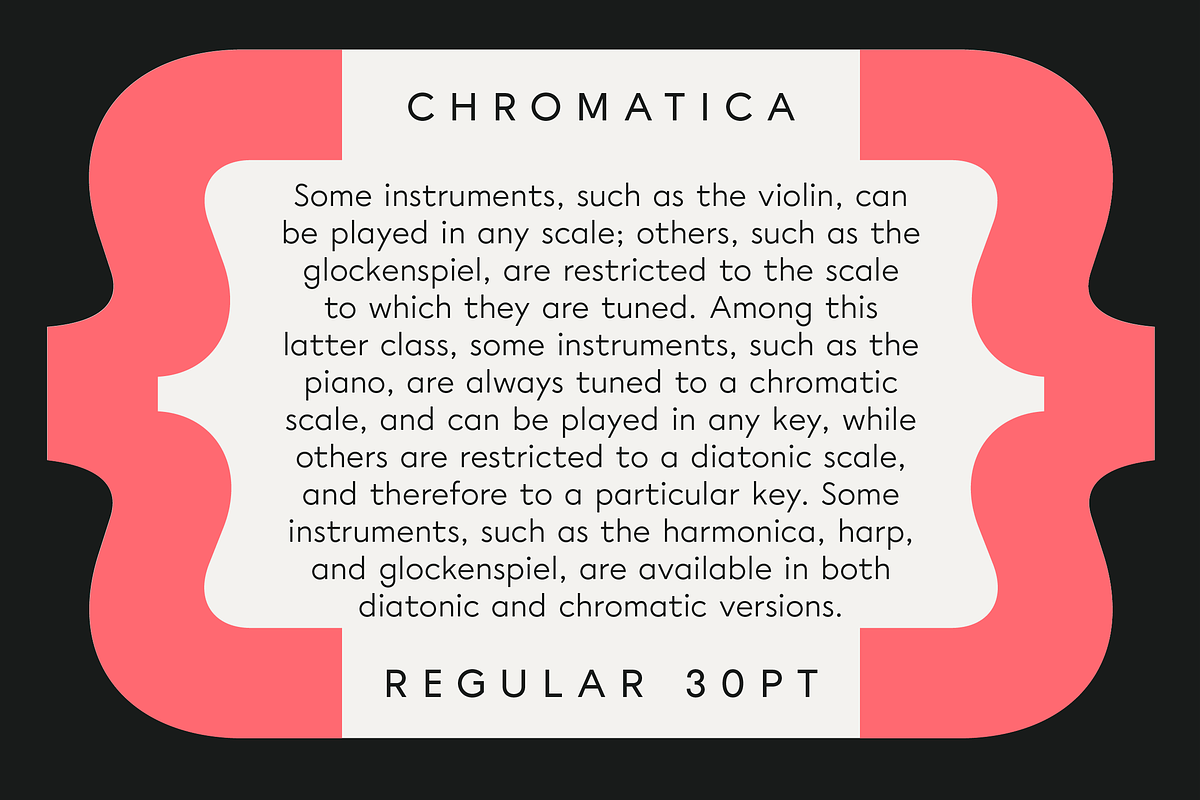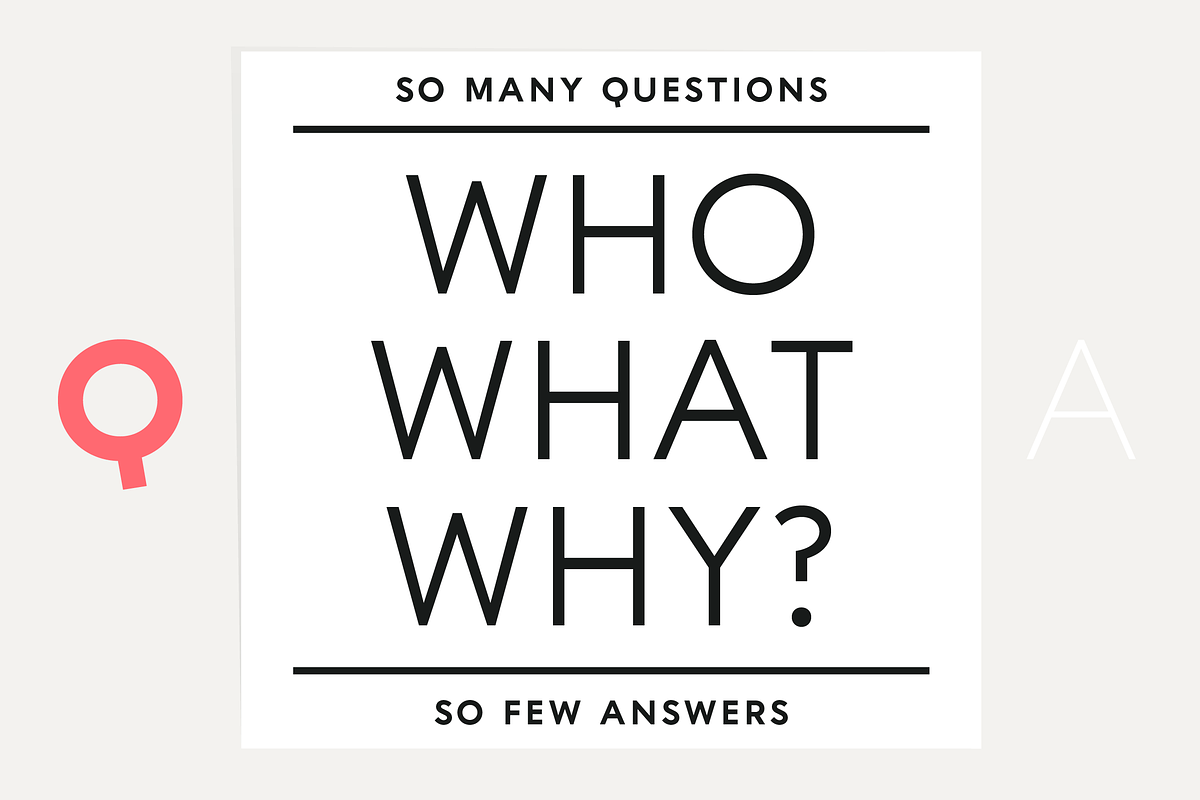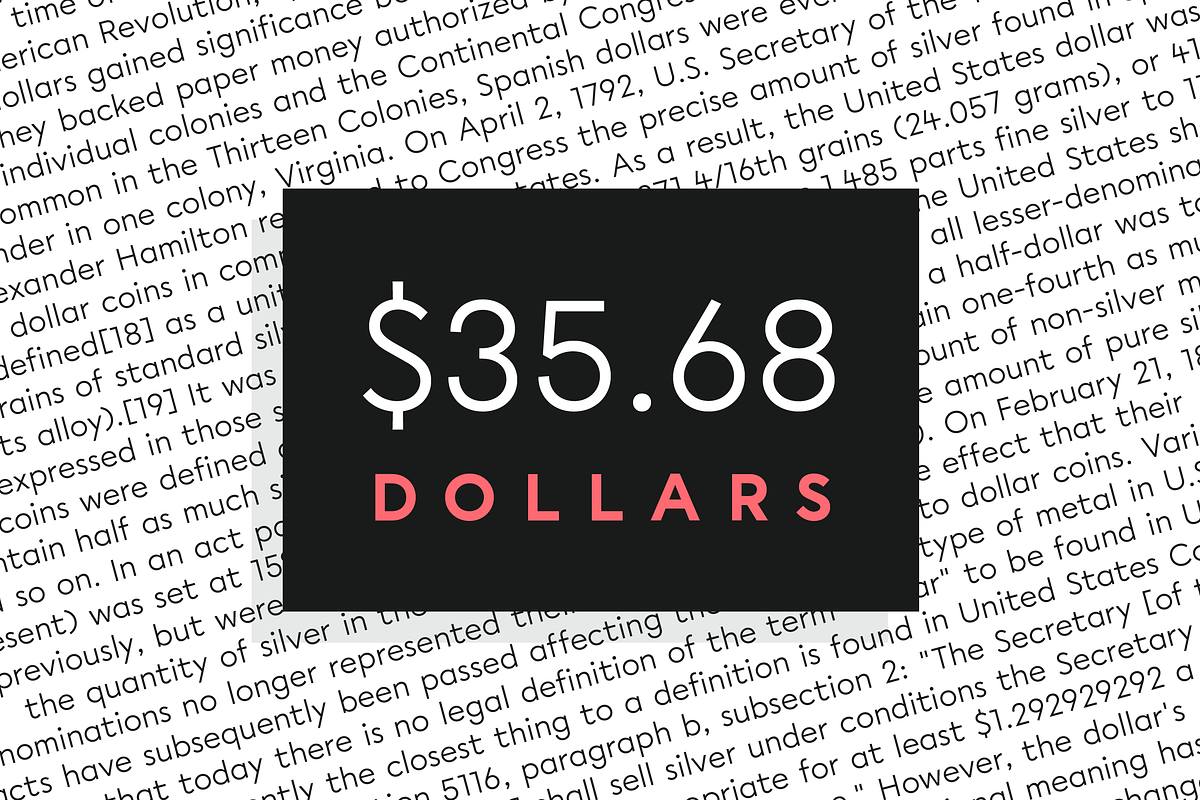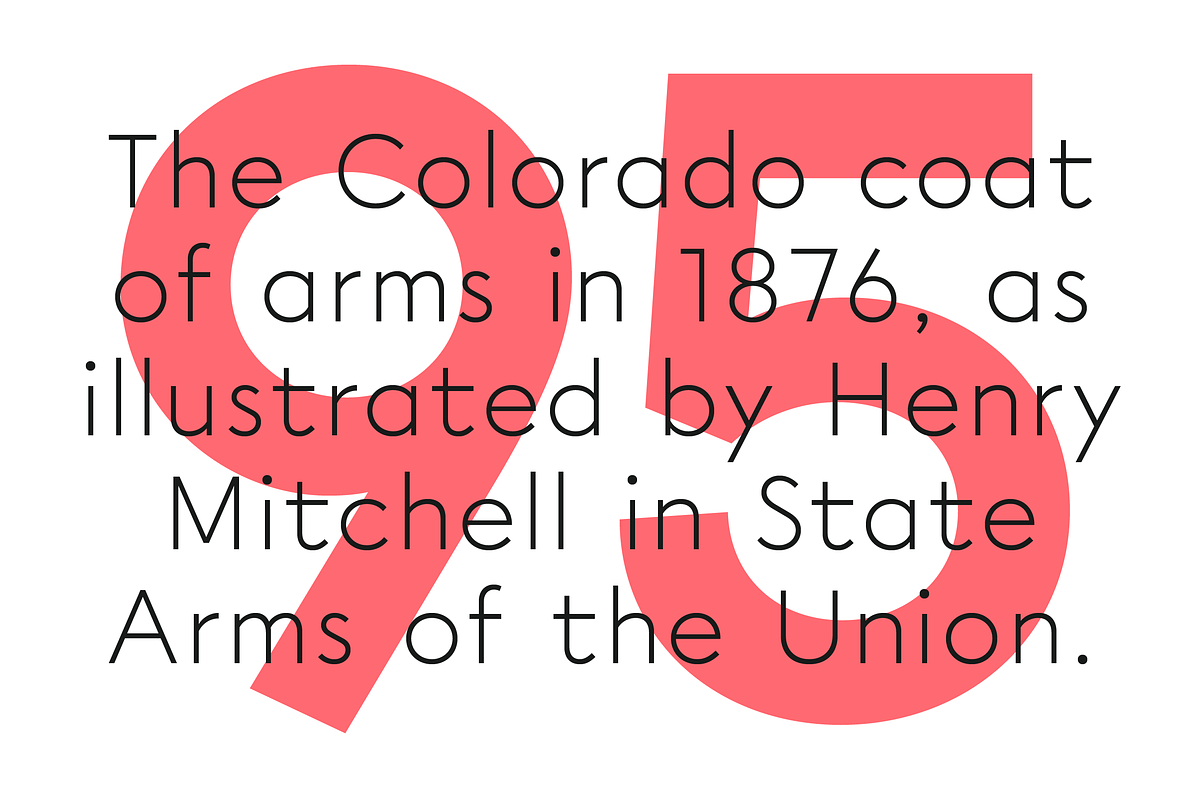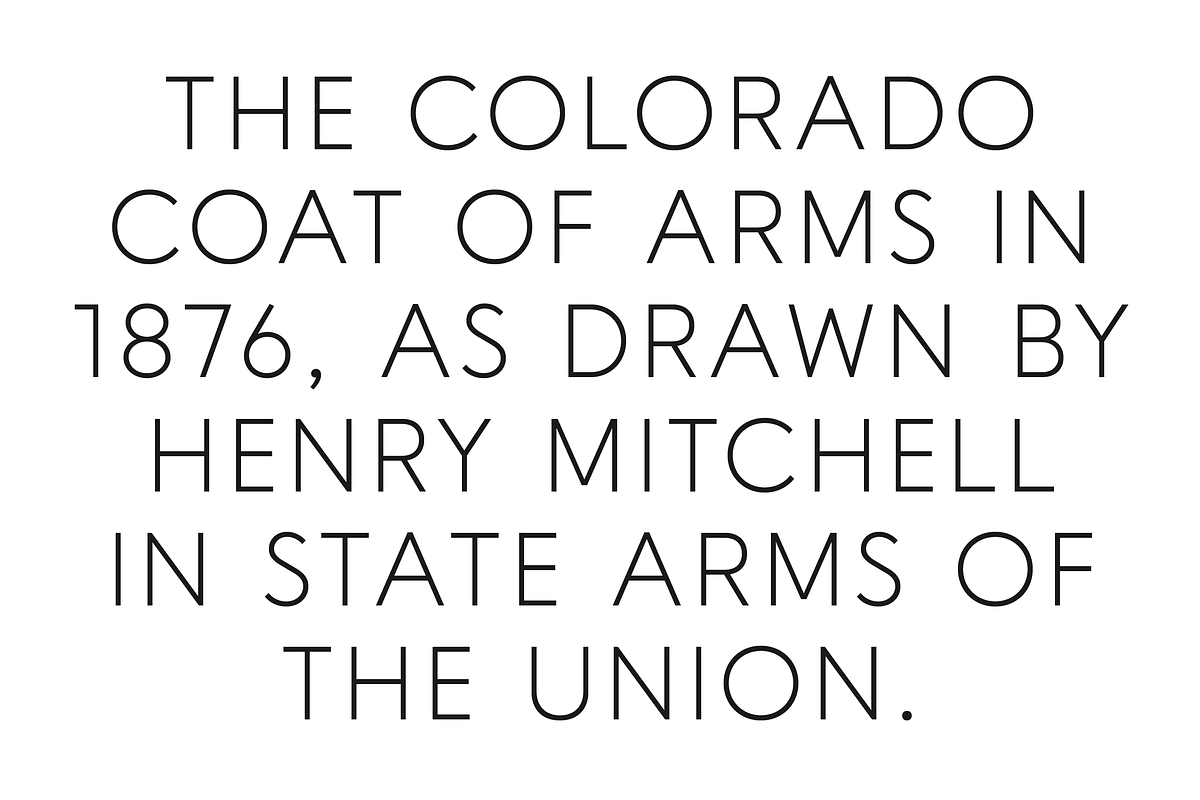
Chromatica
Chromatica is a clean and simple geometric sans in 6 weights, perfect for all your clean and simple geometric sans needs. Crisp and elegant in the lighter weights, sturdy and warm in the heavier weights, Chromatica is a versatile family that you can use again and again.